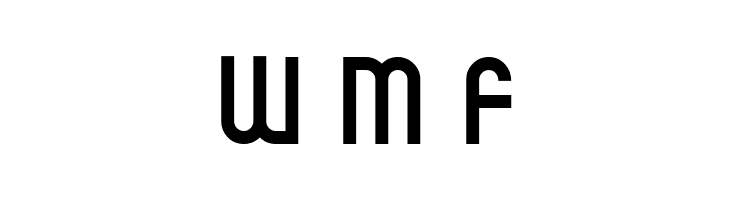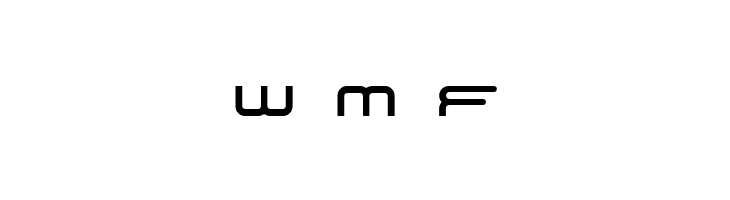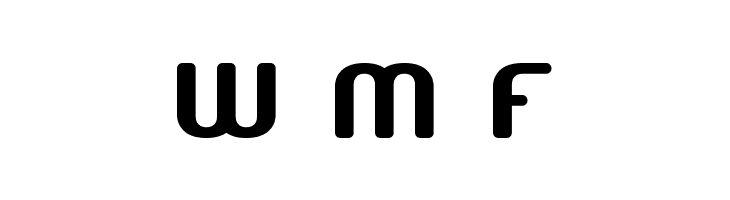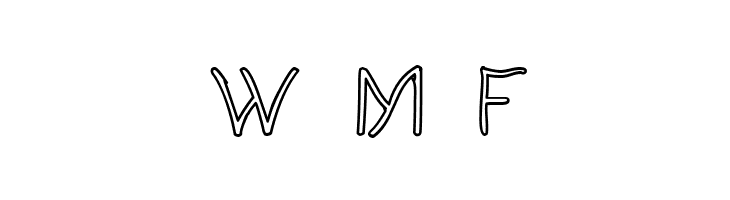
A vintage, typewriter-style font with a hand-drawn, monospaced design.
A futuristic, bold font with rounded edges and a geometric design.
A playful, bold font with rounded, bubbly characters perfect for fun and creative projects.
A bold, rounded, and modern font with a playful and approachable style.
A bold, shadowed font with a three-dimensional, geometric style.
A bold, playful script font with a dynamic and fluid style.
A playful, hollow, hand-drawn font with a whimsical and decorative style.
A decorative font featuring unique skull designs for each character.
A lively and expressive handwritten font with fluid, cursive strokes.
A raw, edgy, hand-drawn style with jagged, uneven strokes.
A modern, geometric font with thin, elongated strokes and a minimalistic design.
A bold, stencil-like font with geometric and industrial design elements.
A bold, decorative font with a three-dimensional shadow effect.
A bold, dynamic font with unique curves and artistic flair.
A modern, geometric font with rounded edges and uniform stroke width.
A futuristic, bold font with rounded edges and a modern aesthetic.
A playful, eclectic font with a ransom note style.
A futuristic, geometric font with rounded edges and uniform thickness.
A playful and whimsical font with bold, rounded letterforms and a quirky aesthetic.